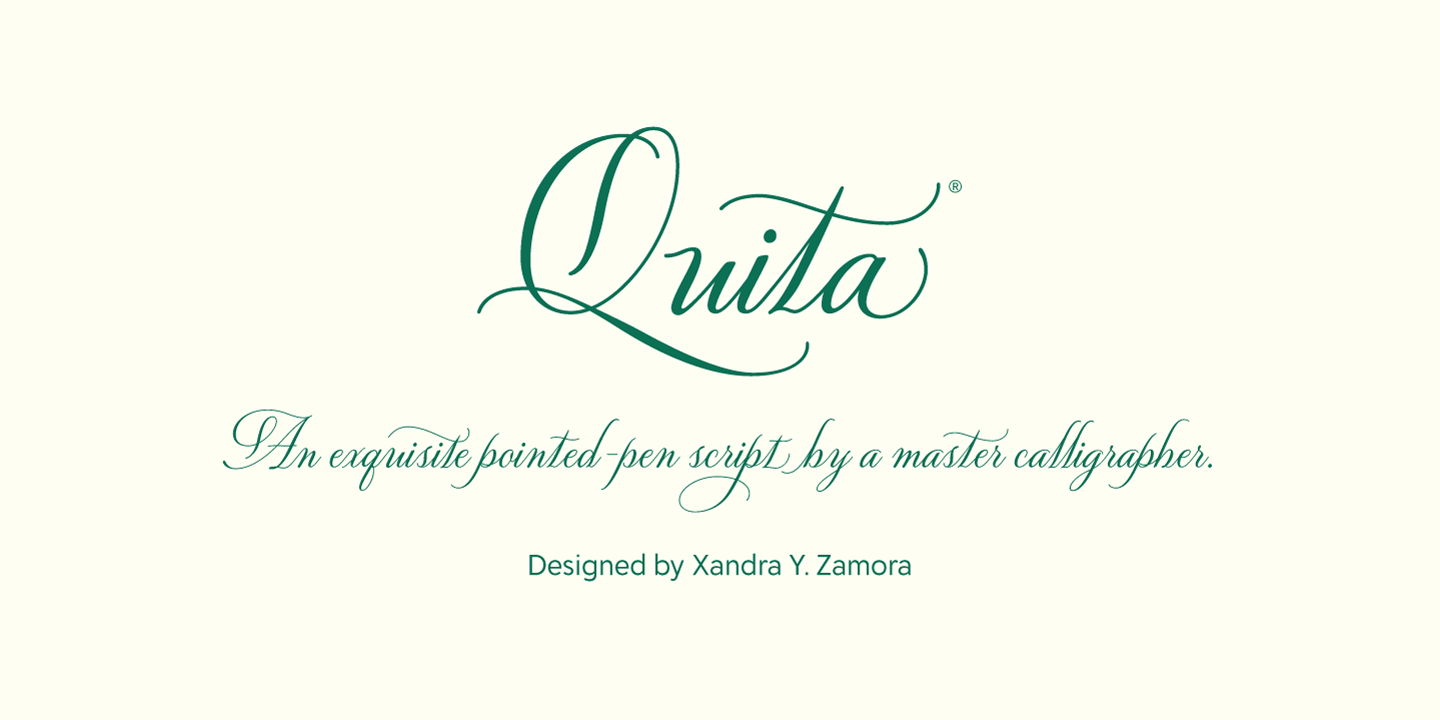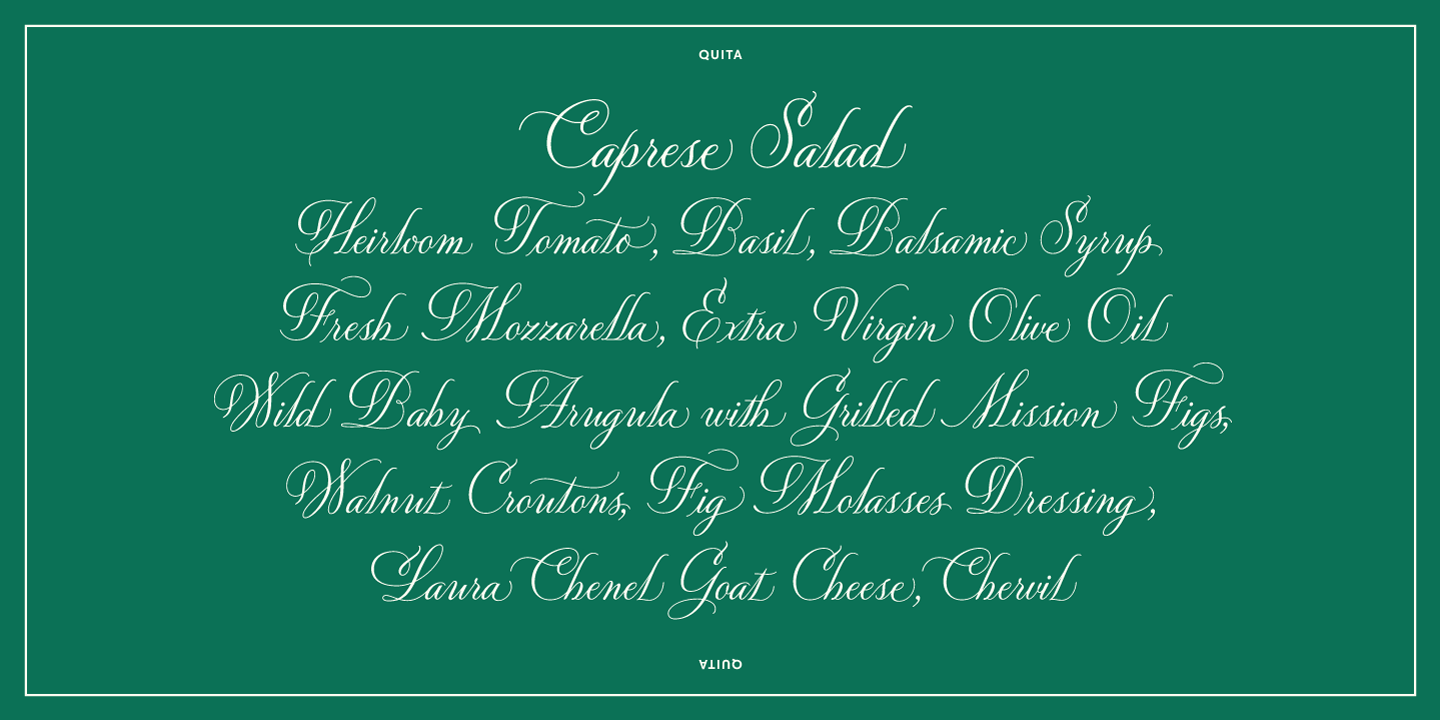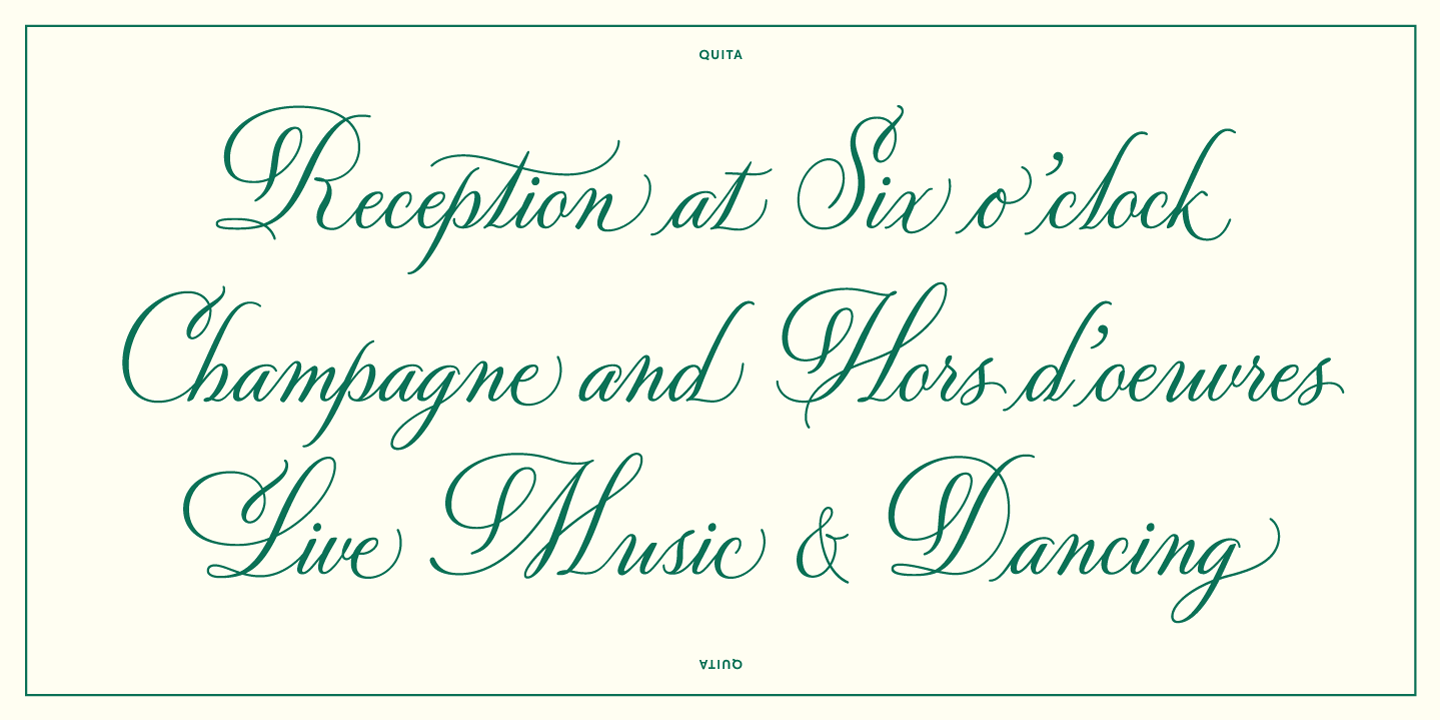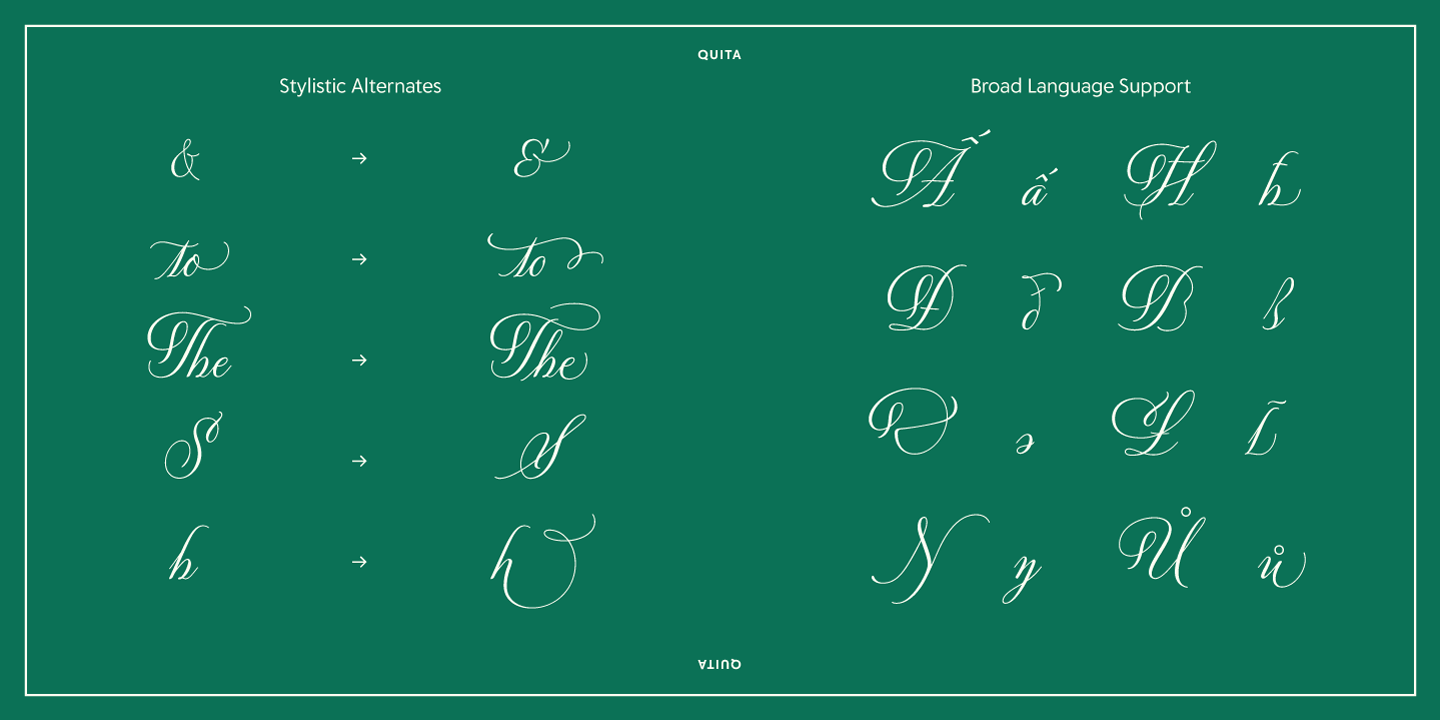
Quita
Font Family by Delve Fonts
Buy NowQuita is a luxurious script penned by best-kept Hollywood secret Xandra Y. Zamora. Her expertise with the pointed pen is apparent in the confident curves and magnificent flourishes seen throughout the typeface. Special attention was paid to the inherent rhythm of Xandra's calligraphy specimens and alternate letterforms were included to invisibly achieve harmonious spacing. Delve Fonts accurately captured and faithfully reproduced the vivacious letterforms as a connected script. Some OpenType features are applied automatically and you may further customize your message by applying alternates, ligatures, and swashes. Quita lends an artistic elegance and sense of refinement to any setting.